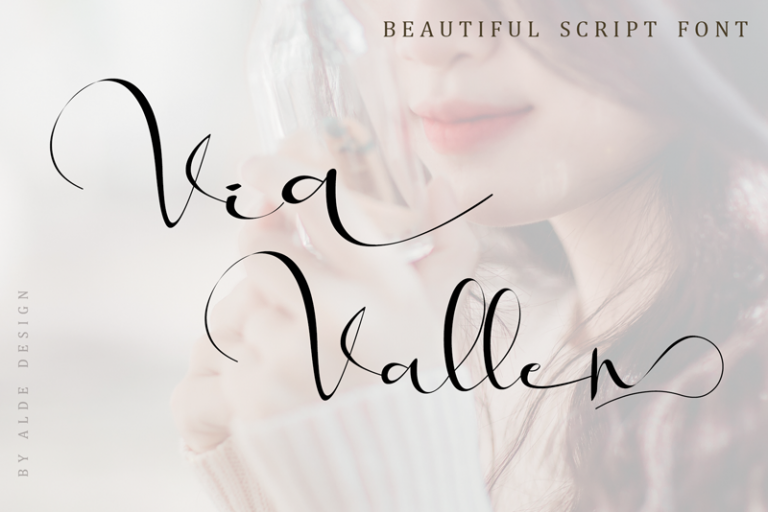
Via Vallen Calligraphy Font
A new modern & fresh script with a stylish calligraphy and script style make this font looks natural, classy, natural and perfect for any awesome projects that need calligraphy taste. Introducing Via Vallen Font. Via Vallen is perfect for many different project such as logos & branding, invitation, stationery, wedding designs, social media posts, advertisements, product packaging, product designs, label, photography, watermark, special events or anything.